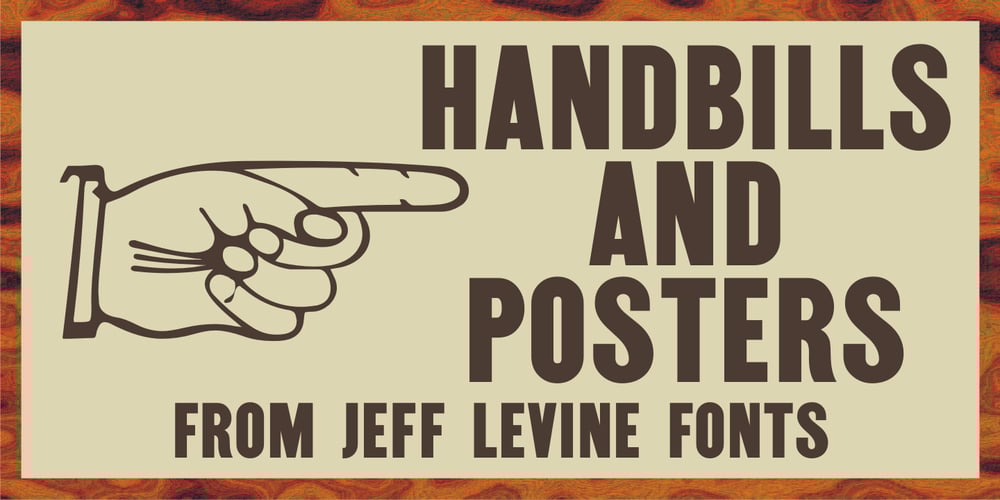
Handbills And Posters JNL Font Family was designed by Jeff Levine and published by Jeff Levine. Handbills And Posters JNL contains 1 styles and family package options. At first glance, Handbills and Posters JNL bears a strong resemblance to Classroom JNL. True, they both share the visual qualities that are based on Franklin Bold Condensed, but this is where the similarity ends. Handbills and Posters JNL is a refined re-draw of the classic design, based largely on vintage typographic examples. There are also some character variances. Classroom JNL is a rougher alphabet with varying curves and lines, and resembles such letters traced and cut out of construction paper for a bulletin board display at school.